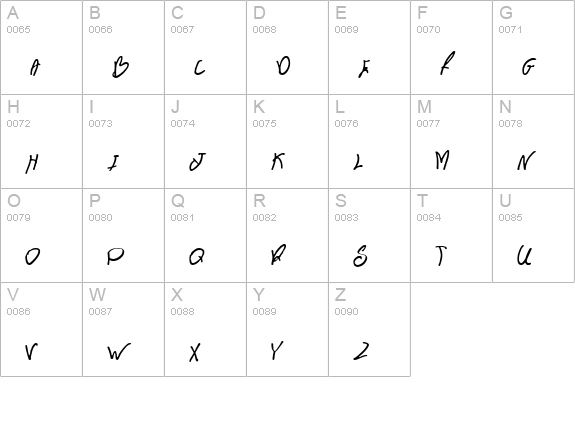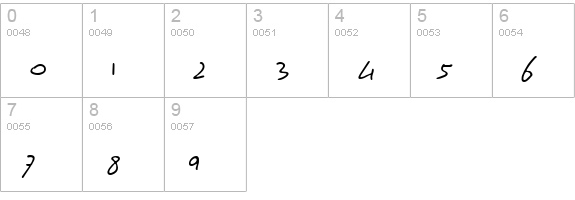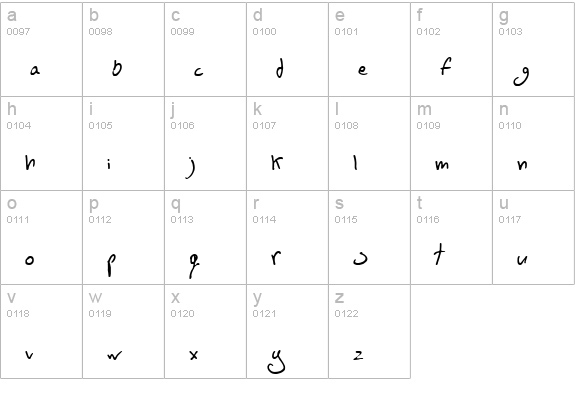
BN Handwrite Font Details
Introducing BN Handwrite font, a charming and whimsical typeface that adds a touch of handcrafted elegance to any design project. With its playful curves and unique handwritten style, BN Handwrite is perfect for adding a personal and creative touch to invitations, greeting cards, posters, and more. What's even better is that BN Handwrite is available for free download at FontsMarket.com! This means you can easily access this delightful font and start using it in your projects right away. Whether you're a designer looking to add some character to your work or simply want to spice up your personal projects, BN Handwrite is the perfect choice. Download it today and let your creativity flourish with this free and versatile font.